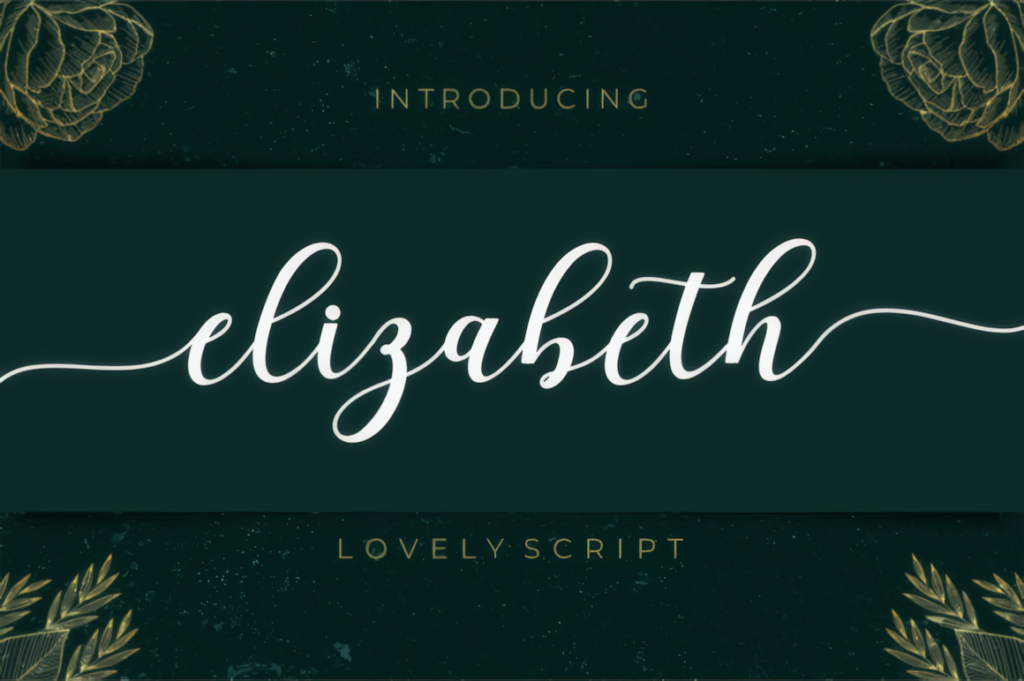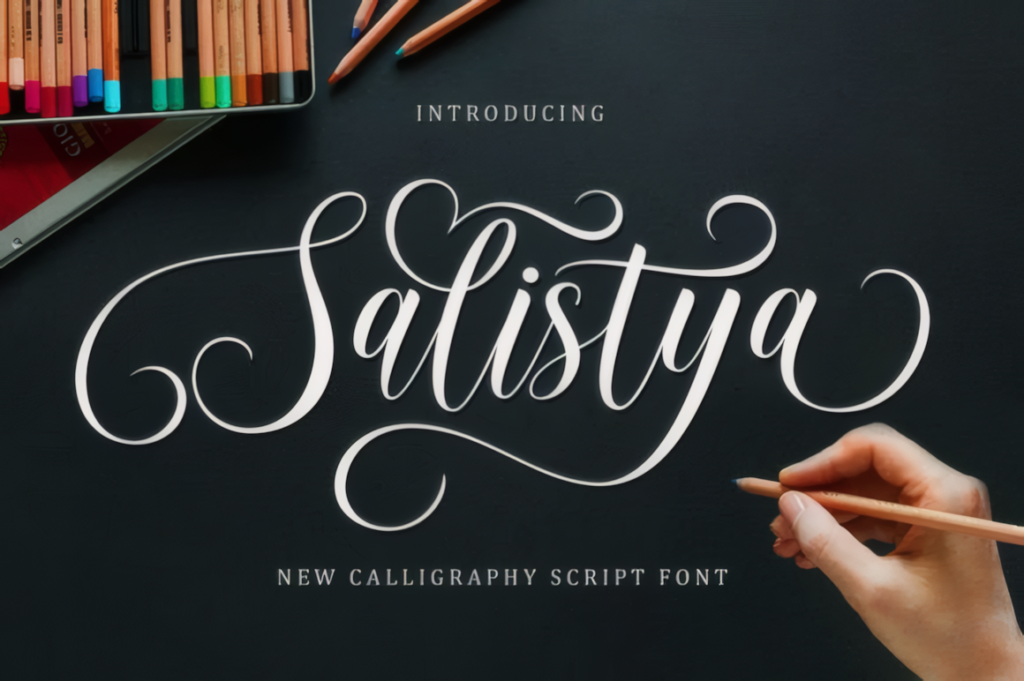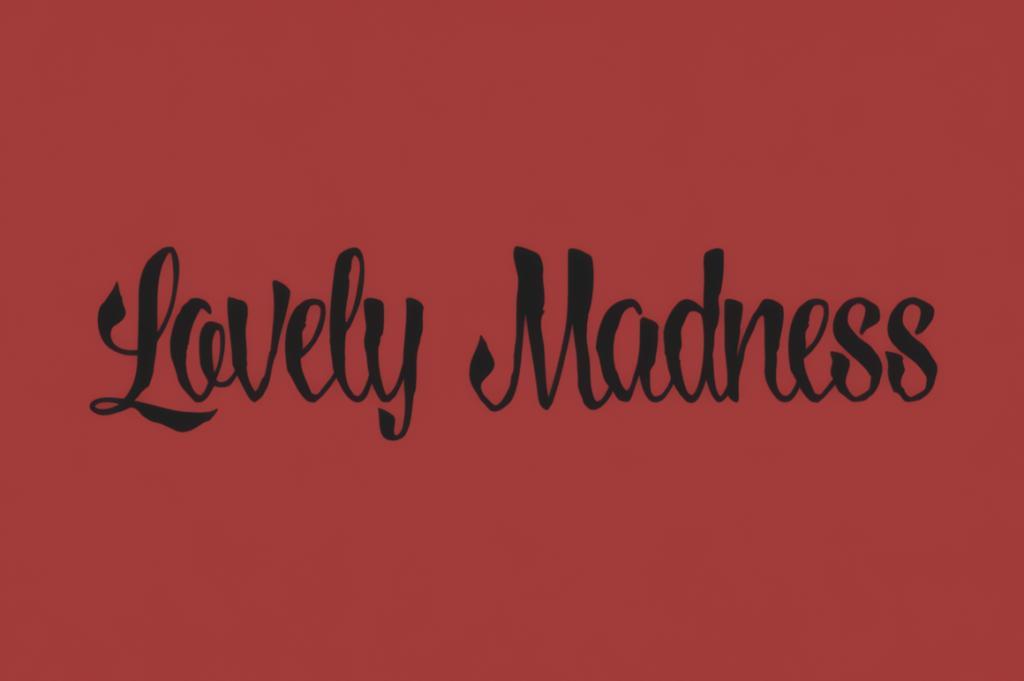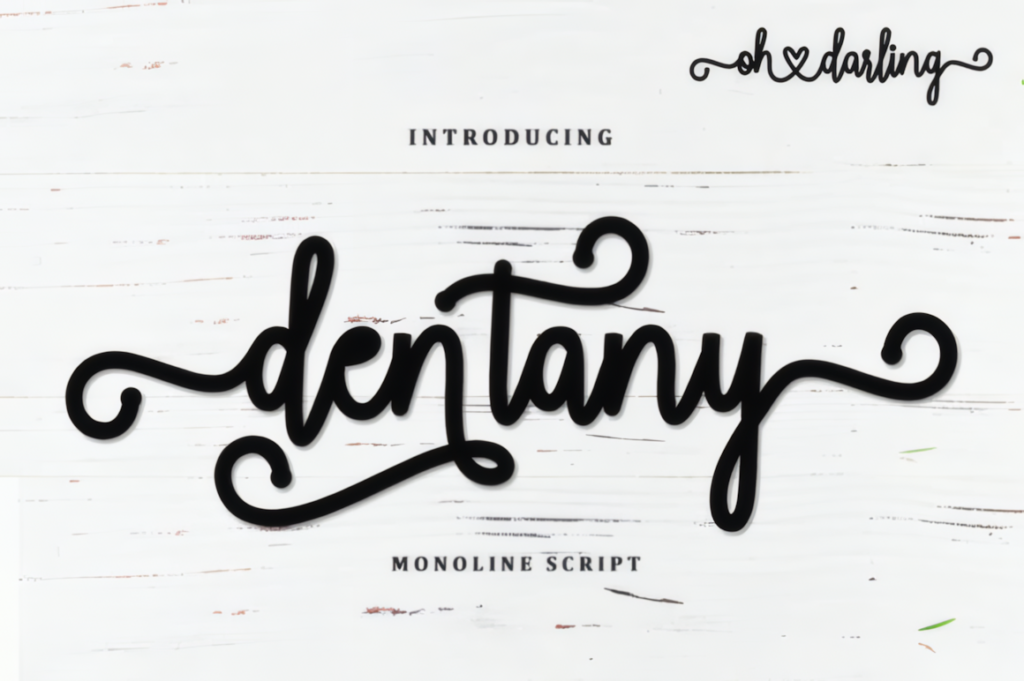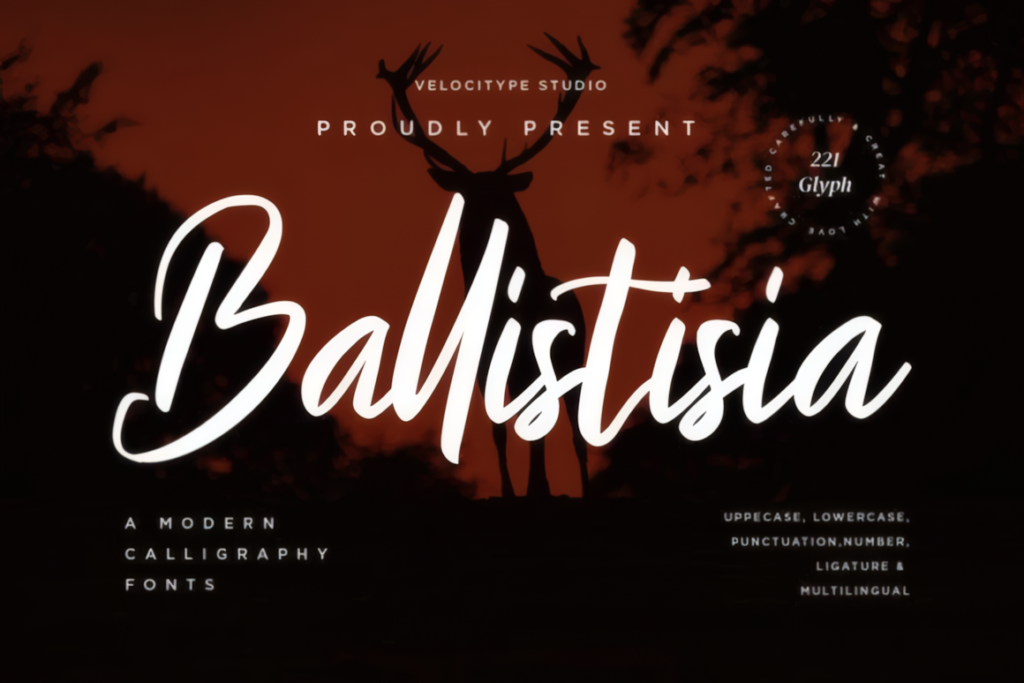
10 Best Calligraphy Fonts for Elegant and Romantic Designs
Calligraphy fonts are a strong choice when a design needs a personal, elegant, or handmade look without feeling unfinished. In this collection, you’ll find 10 beautiful script fonts for logos, wedding invitations, product packaging, social media graphics, posters, and other creative projects.
Each font has its own mood, from soft romantic lettering to bold handwritten styles, so you can choose the one that fits your brand, layout, or visual theme best.
Handwriting Font
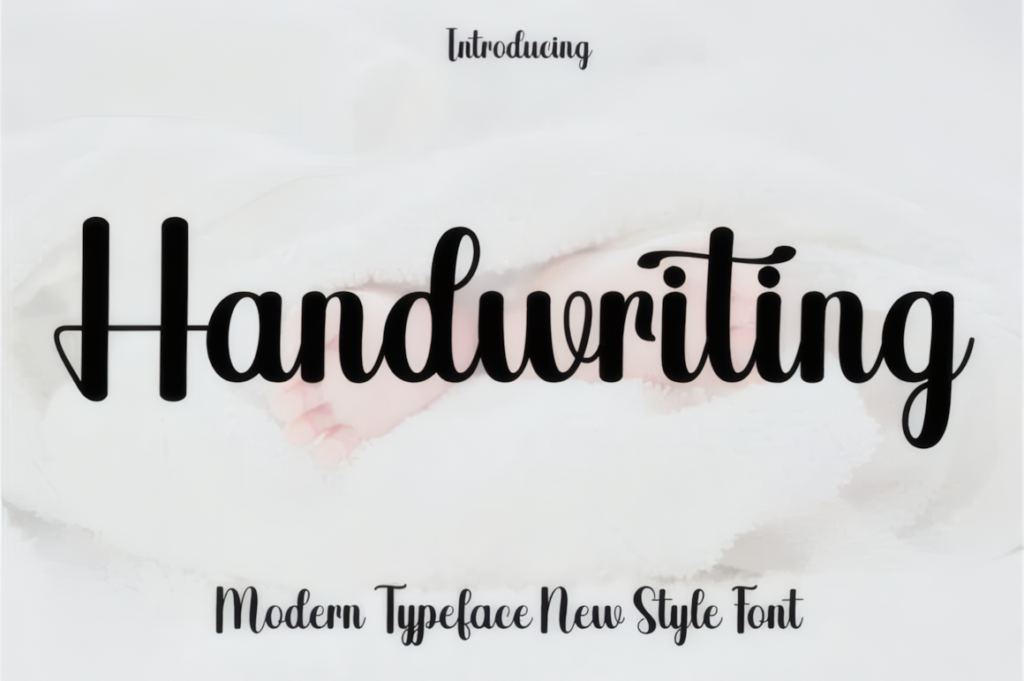
Best For: wedding invitations, logo signatures, quote graphics, T-shirt prints, letterheads, product labels, posters.
The Handwriting Font is a modern script typeface with a playful calligraphy rhythm, rounded strokes, and a friendly hand-lettered feel. Its tall loops, soft terminals, and flowing connections give it enough personality for display work while still keeping words readable in short lines. It fits naturally into collections of Calligrapfy fonts aimed at casual branding, romantic layouts, and expressive headline design.
The font includes numerous alternates through OpenType features, helping names, quotes, and logo text look less repetitive. It works best when used as the visual focus, especially with a plain sans serif or minimal serif supporting it in smaller text. For longer phrases, give it generous spacing and avoid crowded backgrounds so the lively script shapes stay clear.
Bellinda
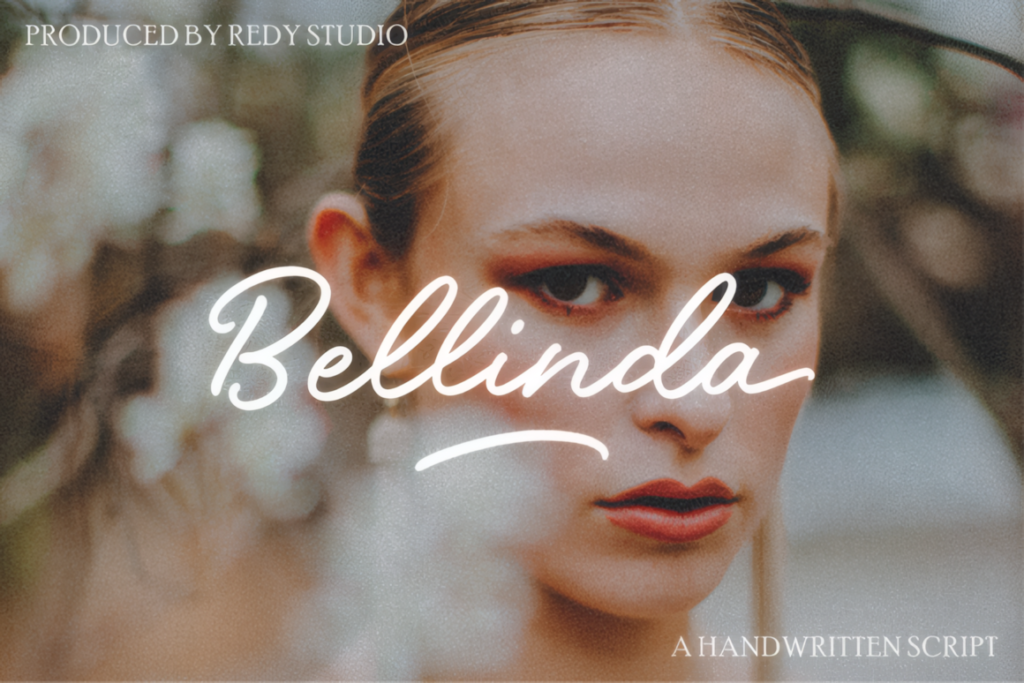
Best For: beauty logos, wedding stationery, romantic quotes, boutique packaging, personal signatures, elegant social media graphics.
The Bellinda Font is a delicate vintage script with smooth, looping strokes and a soft handwritten texture. Its relaxed slant, rounded joins, and graceful swashes give it a romantic feel without making the letters too decorative to read. Among Calligrapfy fonts, Bellinda works especially well when a design needs elegance, nostalgia, and a personal touch rather than a stiff formal script.
The font is PUA encoded, so its extra glyphs and swashes are easy to access in most design software. Use the longer flourishes for names, short quotes, and logo marks, but keep supporting text simple so the script can breathe. Bellinda pairs cleanly with light serif typefaces for editorial layouts or with minimal sans fonts for modern branding.
Chemistry Font
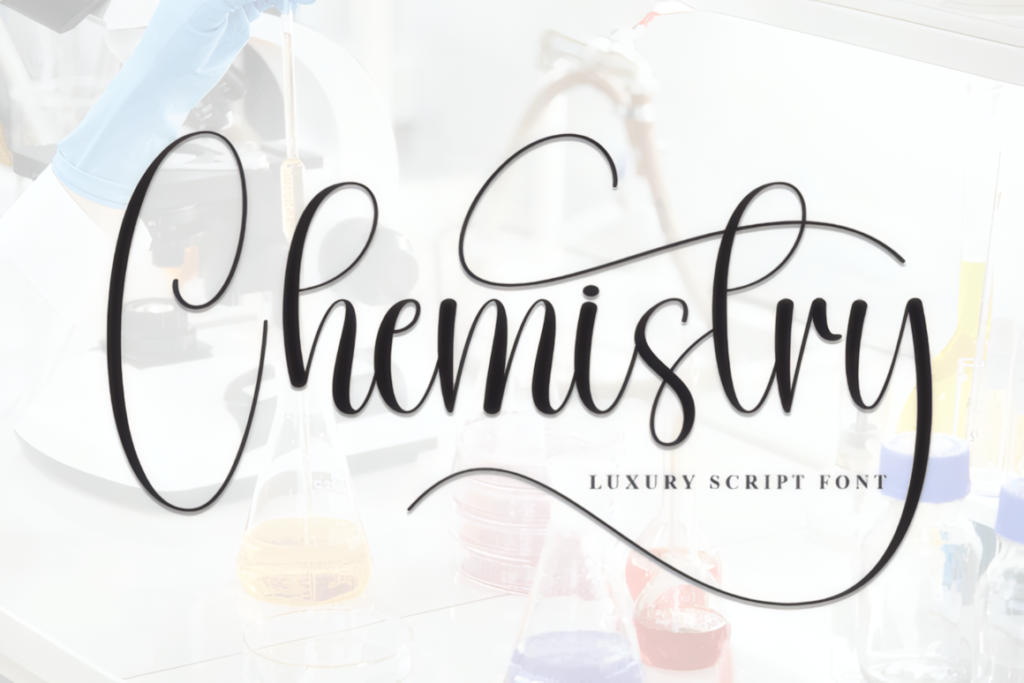
Best For: Instagram quotes, wedding signs, luxury logos, DIY invitations, romantic headlines, beauty packaging, elegant name cards.
The Chemistry Font is a slim handwritten script with tall ascenders, flowing loops, and long decorative swashes that give it a light luxury feel. Its letterforms are elegant rather than heavy, making it a strong choice for designs that need movement, romance, and a polished handmade touch. In a collection of Calligrapfy fonts, Chemistry stands out for its airy rhythm and graceful contrast between narrow strokes and sweeping capitals.
The font works best in short phrases, names, headlines, and social media text where the decorative lines have enough room to extend. Its thin structure benefits from clean backgrounds and generous spacing, especially in print or overlay designs. Pair it with a simple serif or minimal sans font to keep the layout balanced and let the script remain the main visual detail.
Butter Donat Font
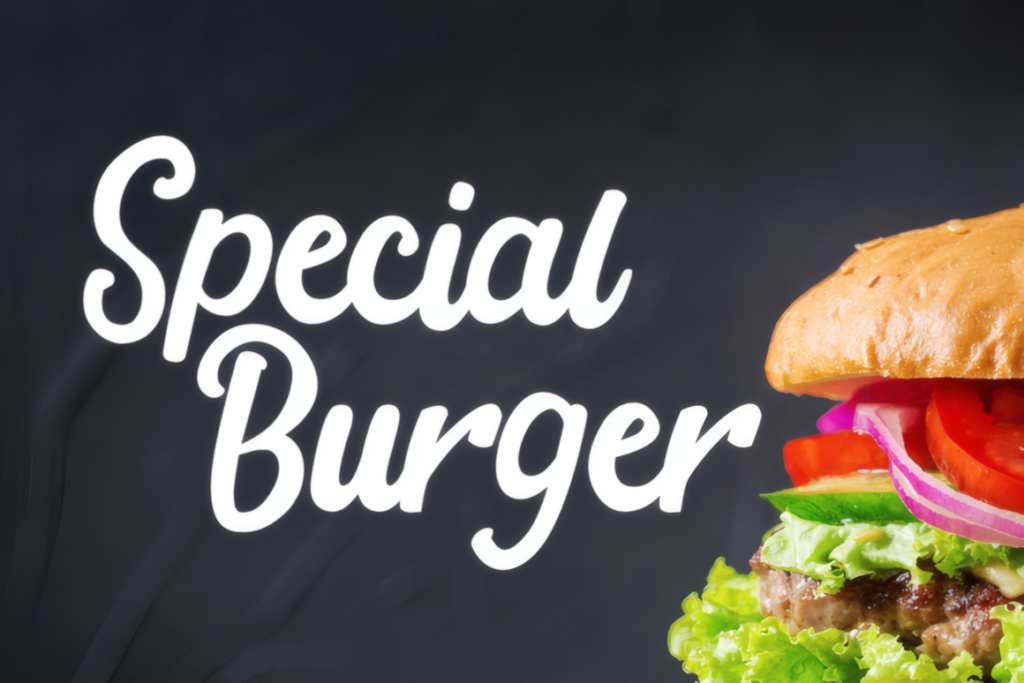
Best For: burger branding, café menus, food posters, Instagram promos, snack packaging, playful logos, bold headline graphics.
The Butter Donat Font is a bold cursive script with thick rounded strokes, smooth connections, and a playful display look. Its chunky letterforms give it strong visibility, while the soft curves keep it casual and approachable rather than harsh. In a set of Calligrapfy fonts, Butter Donat fits the brighter, more commercial side: friendly, readable, and made for designs that need instant impact.
The font works well at large sizes, especially on food branding, posters, packaging, and social media graphics. Its weight makes it useful over photos or dark backgrounds, but it still needs breathing room because the rounded script shapes can feel crowded in long sentences. Pair it with a clean sans serif for menus, labels, or promotional layouts where the script carries the main headline.
Gervia Font
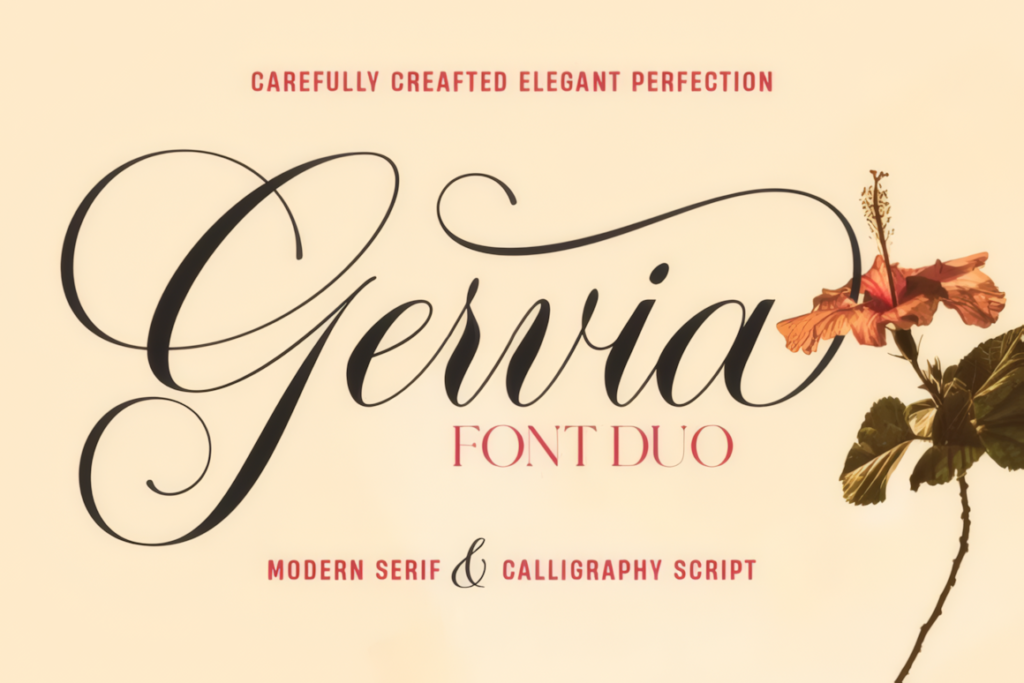
Best For: luxury branding, wedding invitations, product packaging, book covers, editorial headlines, elegant signage, signature logos.
The Gervia Font Duo combines an elegant calligraphy script with a clean modern serif, giving designers a ready-made pairing for polished layouts. The script side is graceful and expressive, with long swashes, high contrast strokes, and a classic handwritten rhythm, while the serif adds structure and readability. In a collection of Calligrapfy fonts, Gervia feels more refined and editorial than casual, making it useful for designs that need decorative beauty without losing balance.
Gervia Script Pro includes 800+ alternate characters with Latin and Pro Latin support, so names, titles, and display text can be customized with varied flourishes. The serif family comes in regular and italic, which helps build complete compositions around the script. Use the calligraphy font for the main wordmark or headline, then let the serif handle subtitles, product details, or supporting copy.
The right calligraphy font can quickly change the tone of a design, whether you need a refined signature, a romantic wedding script, or a bold handwritten headline. These 10 calligraphy fonts cover a useful range of styles for branding, invitations, packaging, posters, quotes, and social media content.